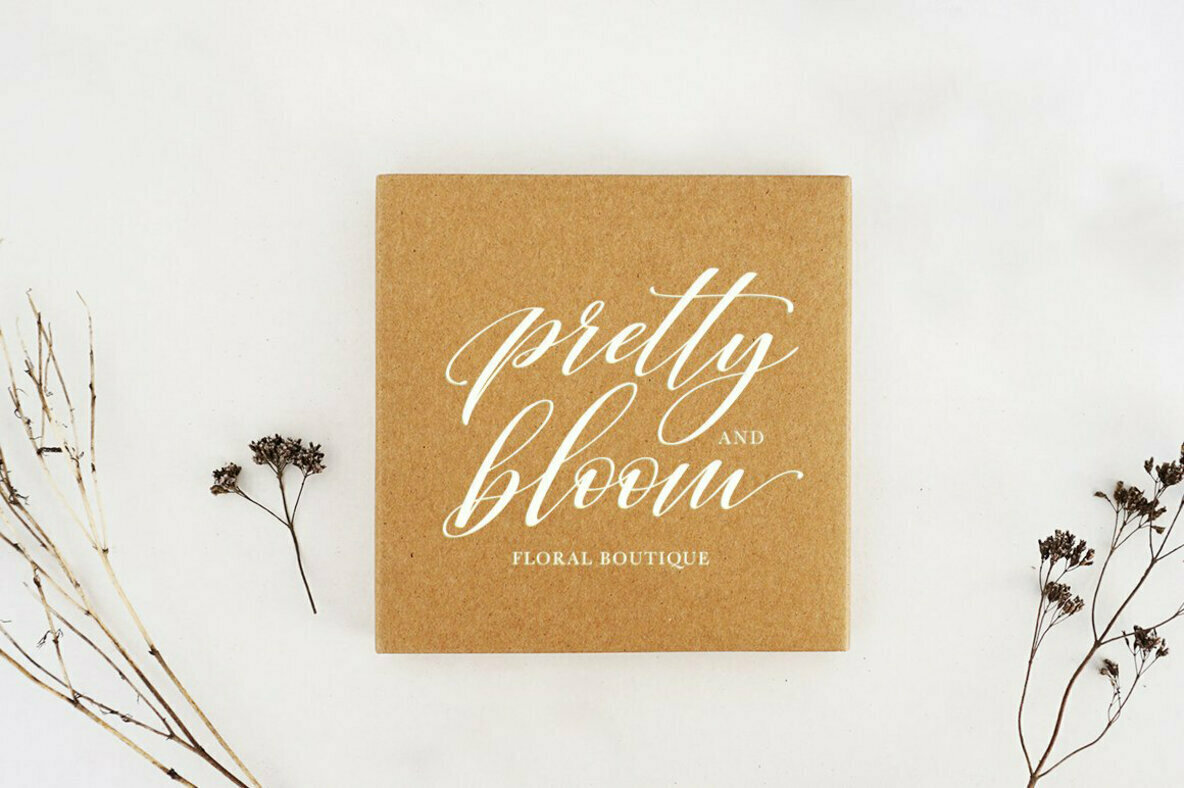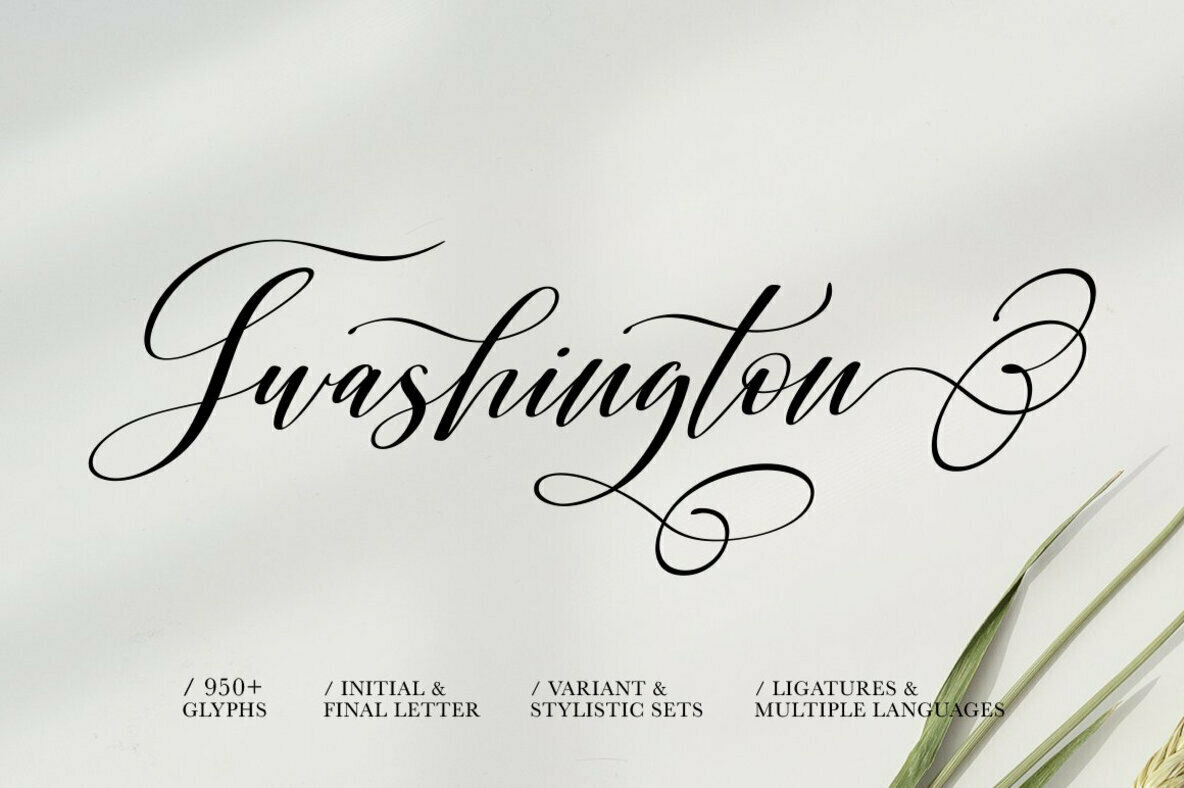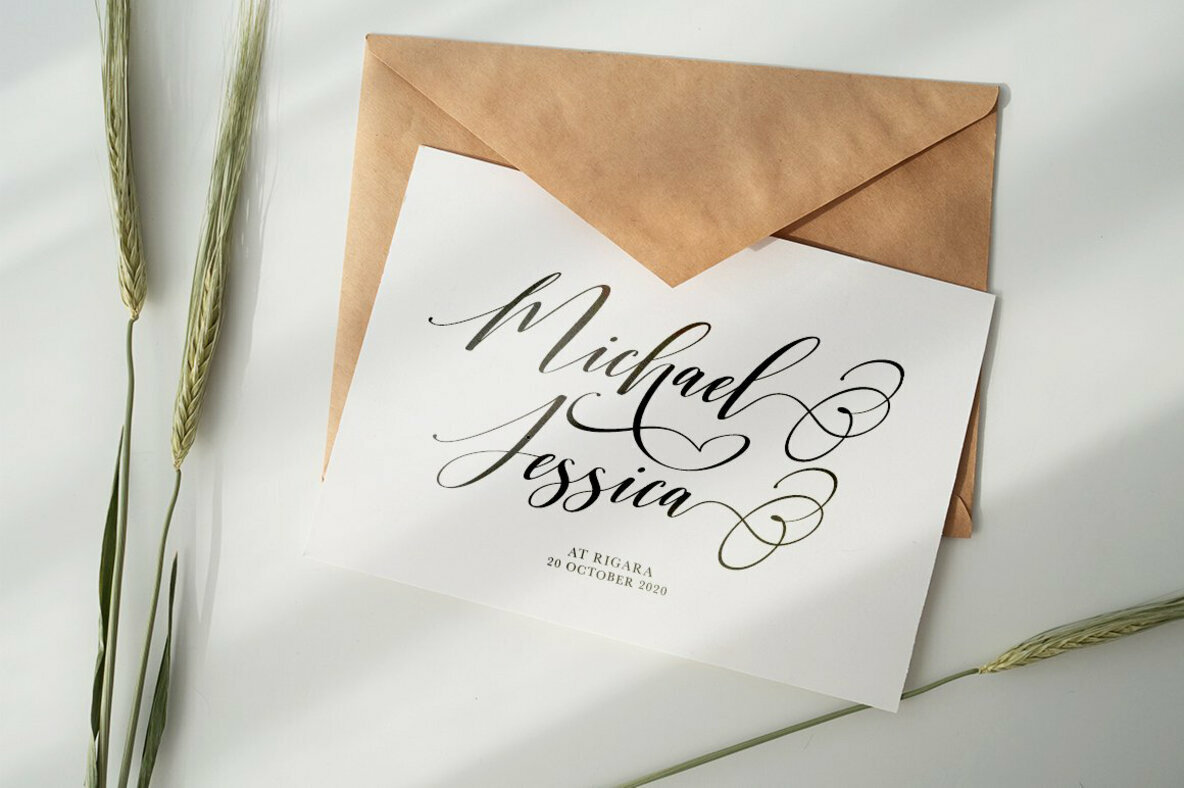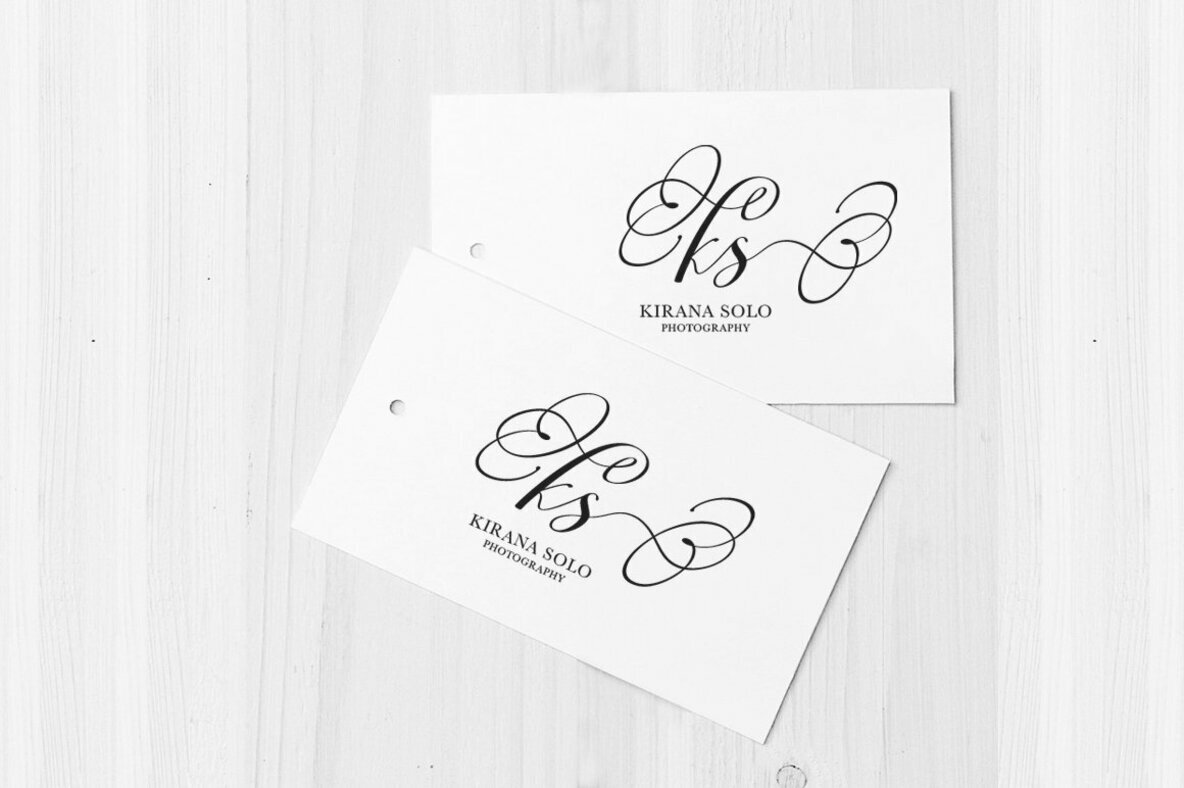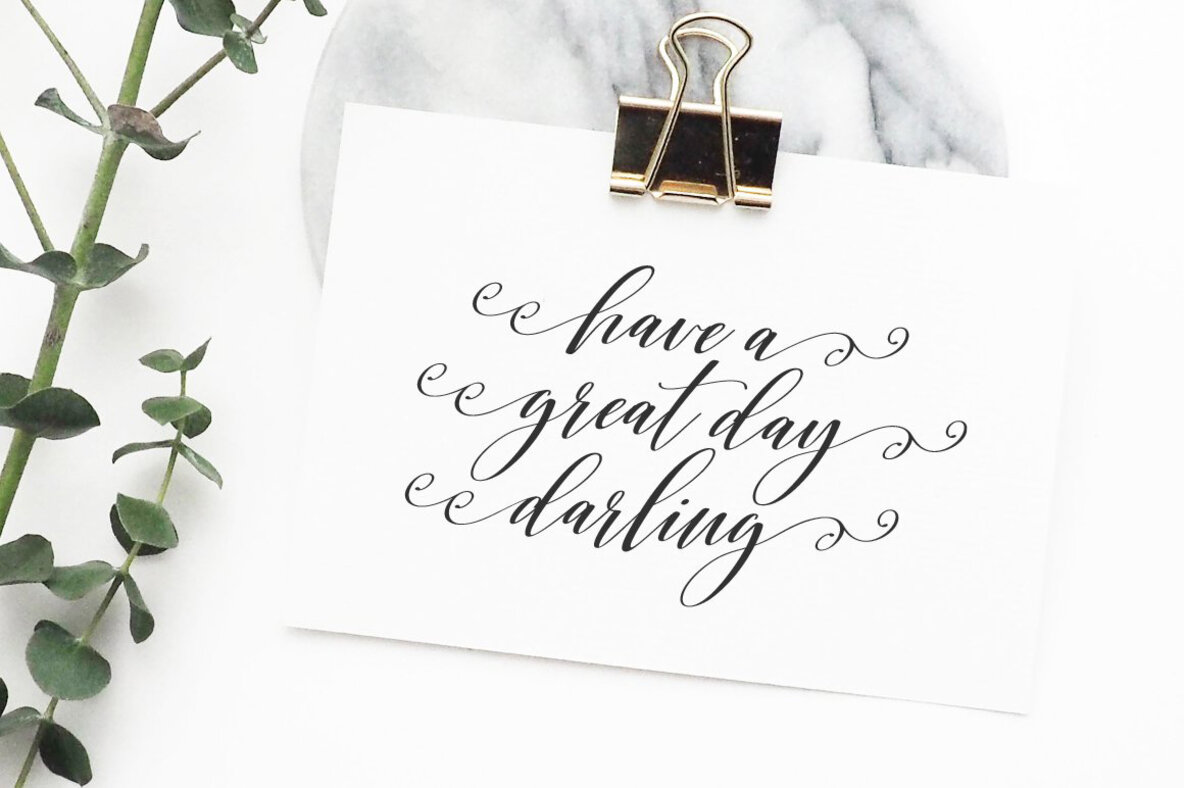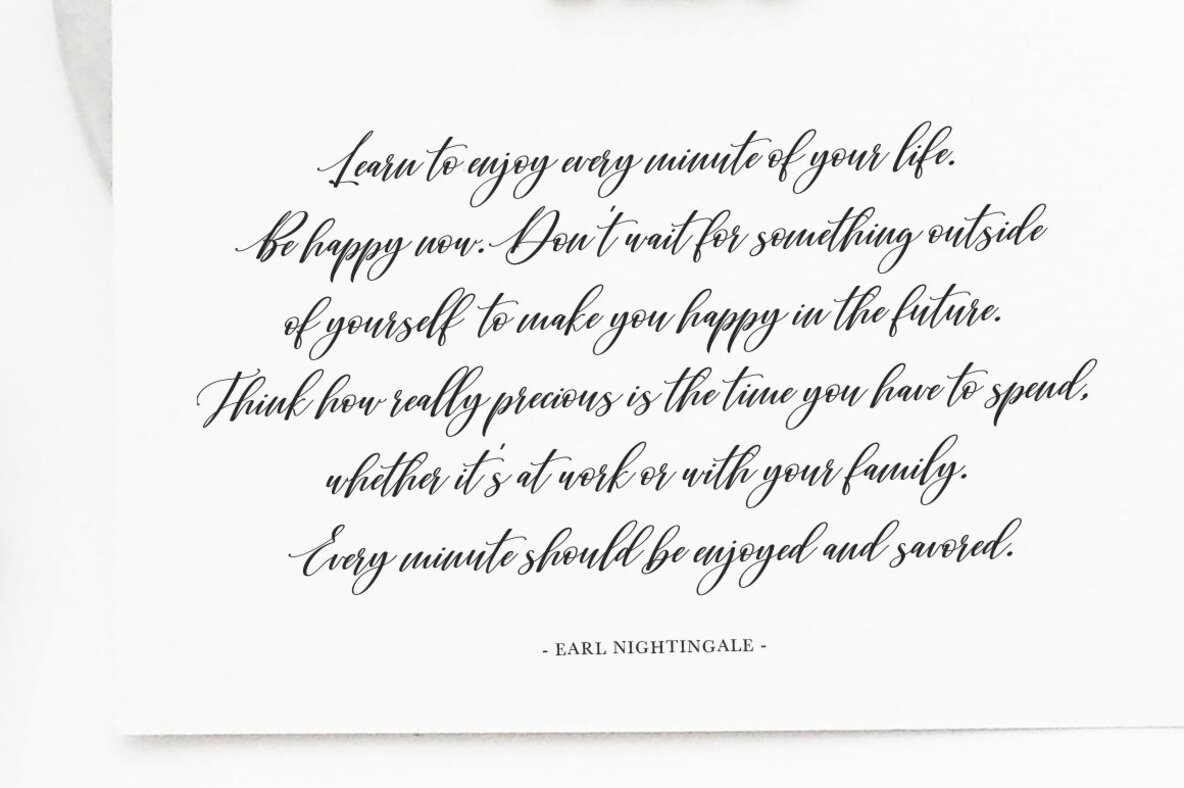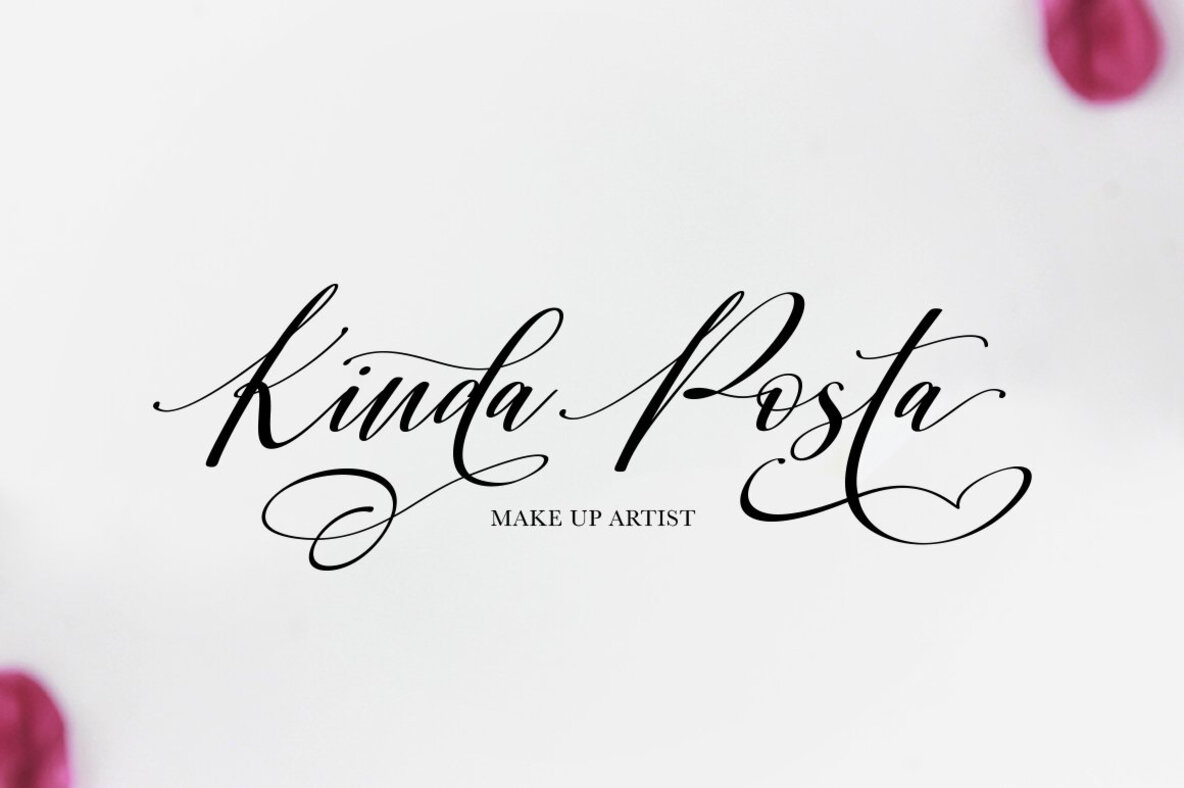
Shington Script
Shington Script is modern script font that features a varying baseline, smooth line, classic and elegant touch.
Shington Script features 950+ glyphs. It comes with a handy set of opentype stylistic, use the beautiful ligatures, alternates and swashes. You need a program that supports OpenType features such as Adobe Illustrator CS, Adobe Photoshop CC, Adobe Indesign, Microsoft Word 2010. It is perfect for logo, greetings, branding, quotes, prints, invitations and crafting. All lowercase letters include alternates, beginning & end swashes, that makes the font look fabulous!